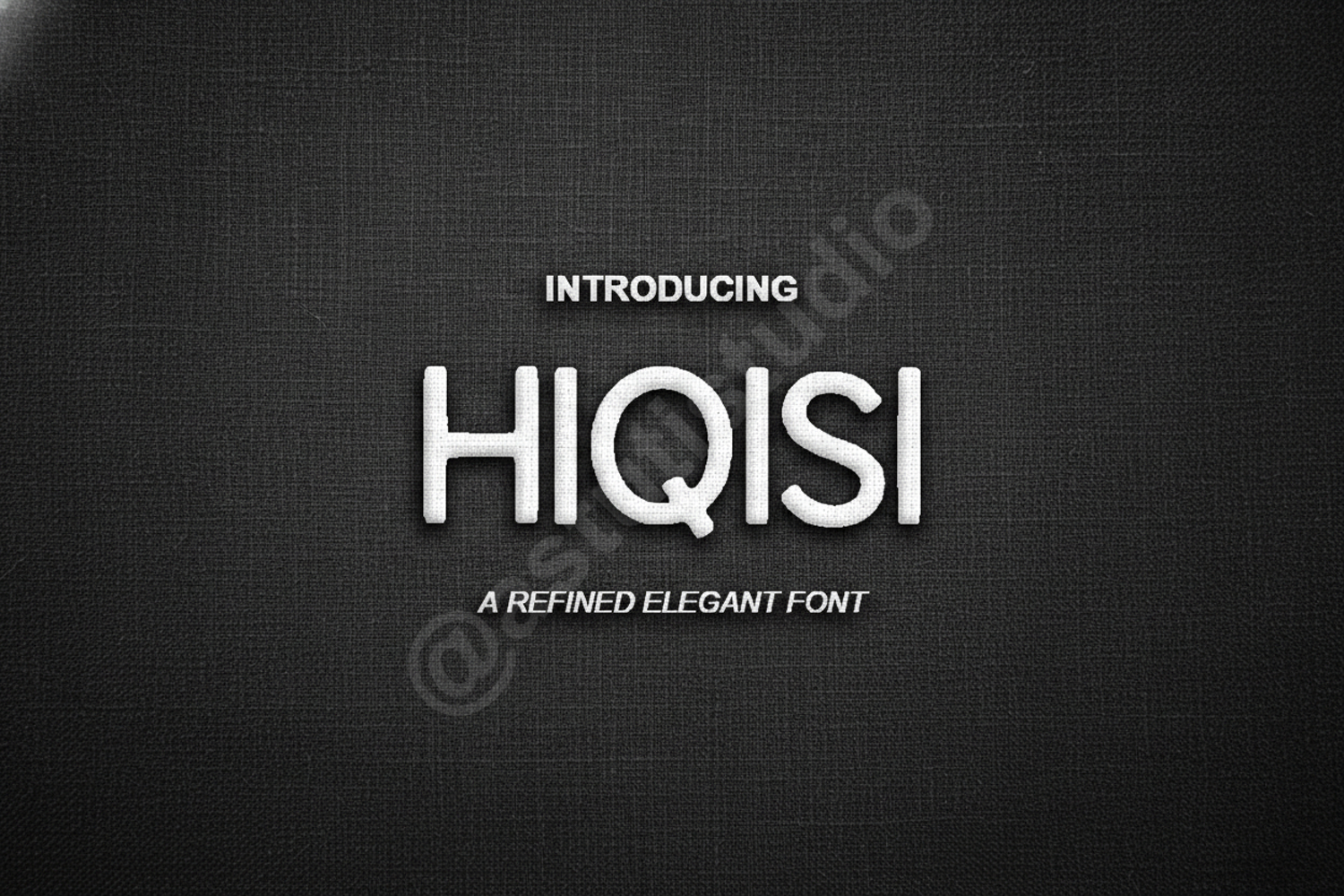
Hiqisi - Elegant Modern Serif Typeface
Hiqisi
Hiqisi is a sophisticated serif font that blends timeless elegance with contemporary flair. Designed with precision, this typeface offers a clean and high-end aesthetic perfect for creators looking to elevate their design projects. Whether you are working on a luxury brand identity or a minimalist editorial layout, Hiqisi provides the perfect balance of readability and style.
- Comprehensive Multilingual Support
- Standard Ligatures and Alternates
- Professional Branding and Logo Design
- Elegant Wedding Invitations and Stationery
- High-end Editorial and Magazine Layouts
- Luxury Product Packaging
- Social Media Graphics and Quotes
- Website Headers and Modern UI Design